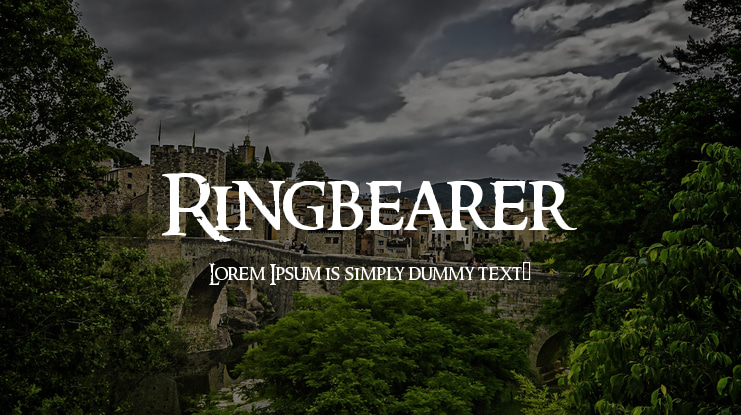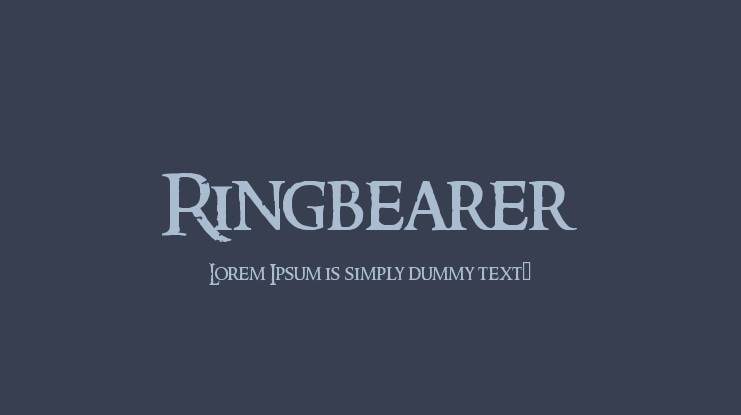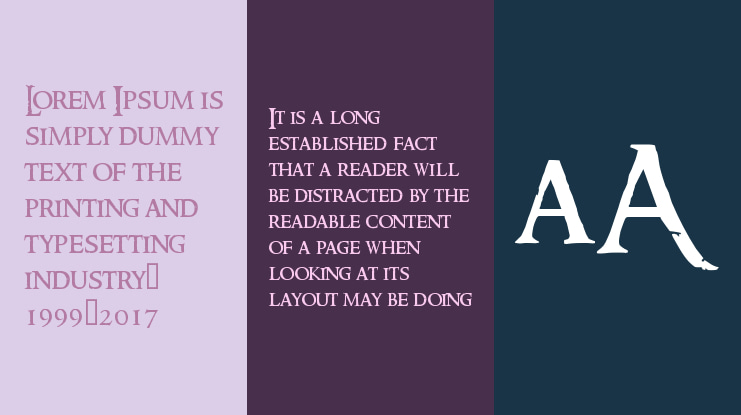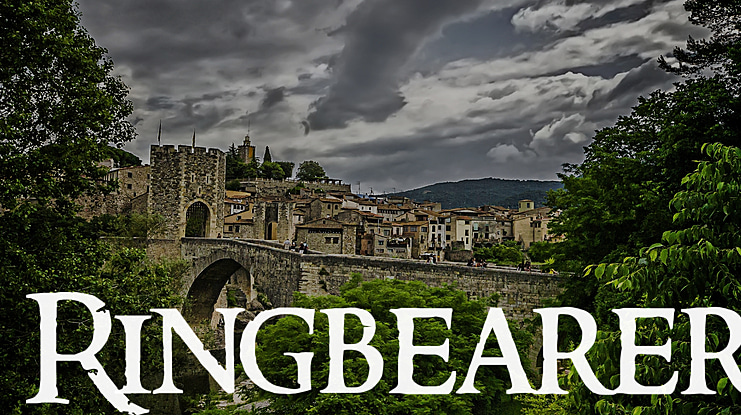
Ringbearer Font
The Ringbearer font is a replication of the font used in the logo of Peter Jackson's "The Lord Of The Rings" trilogy. I tried to find the original font used in the logo for about half a year, however, without success. So I just tried to re-create it, using different logo types from international sites of LotR.